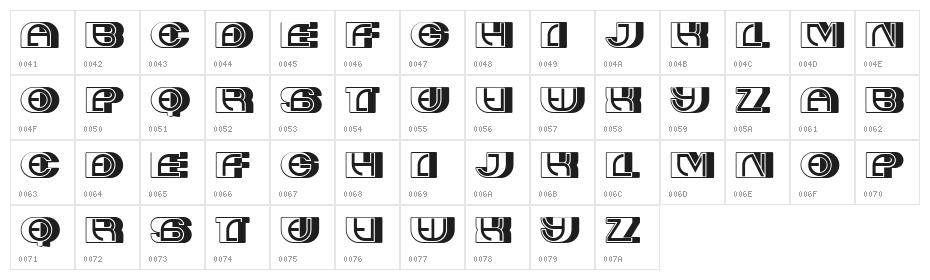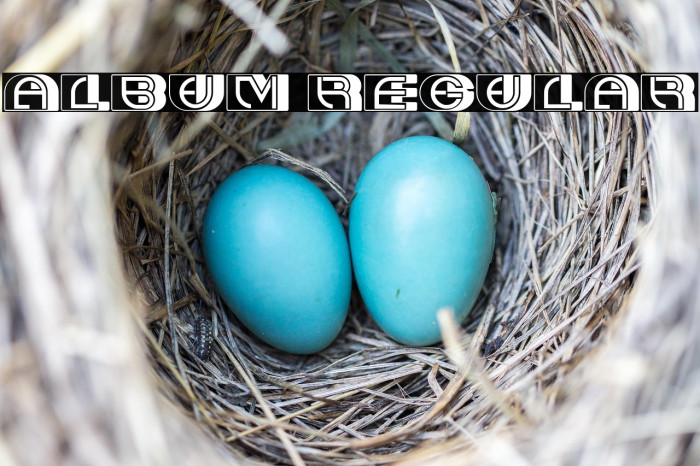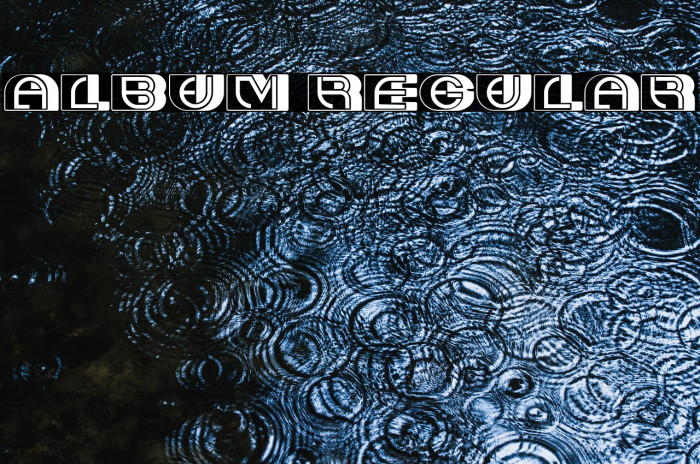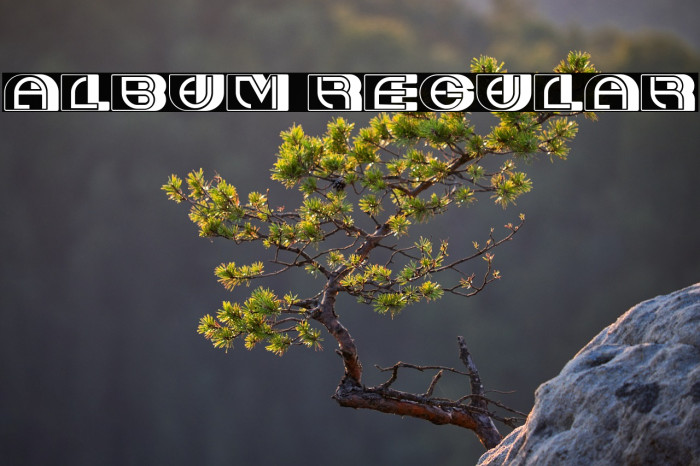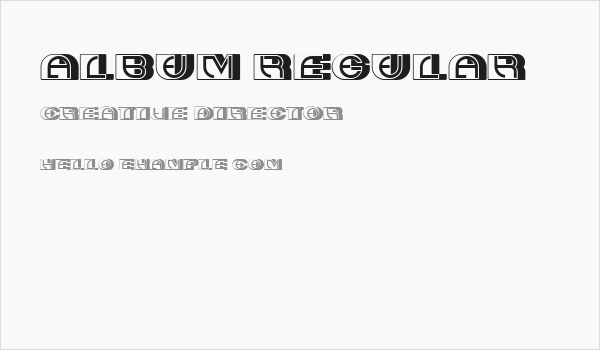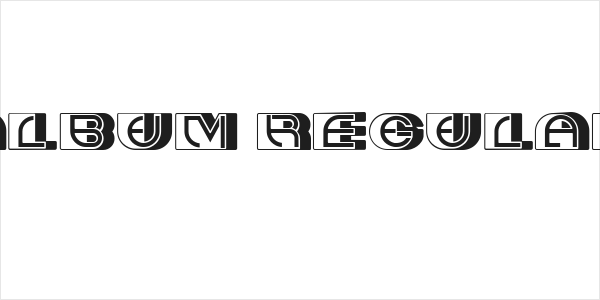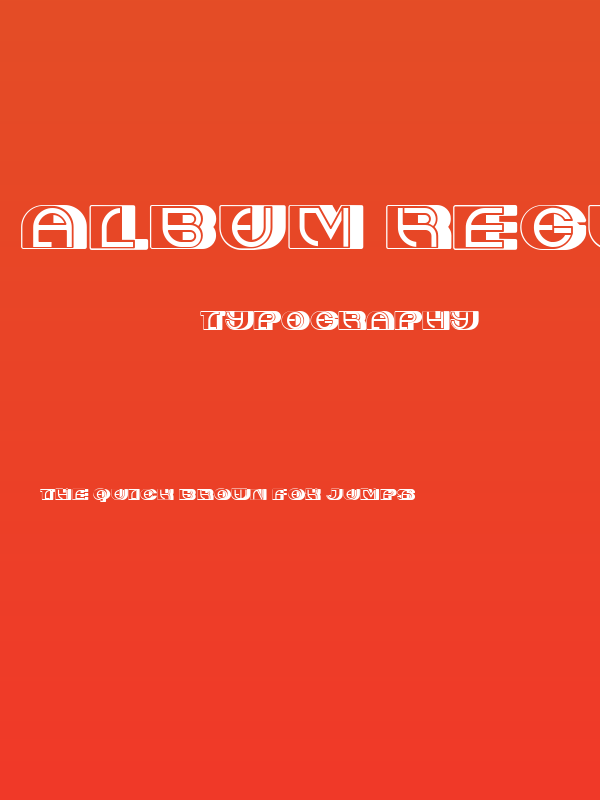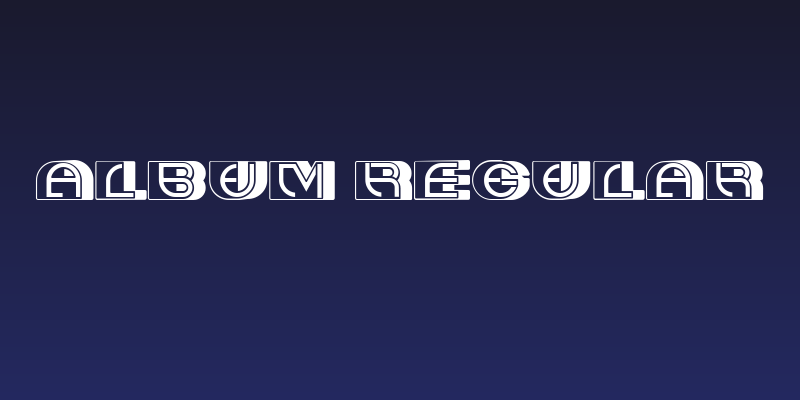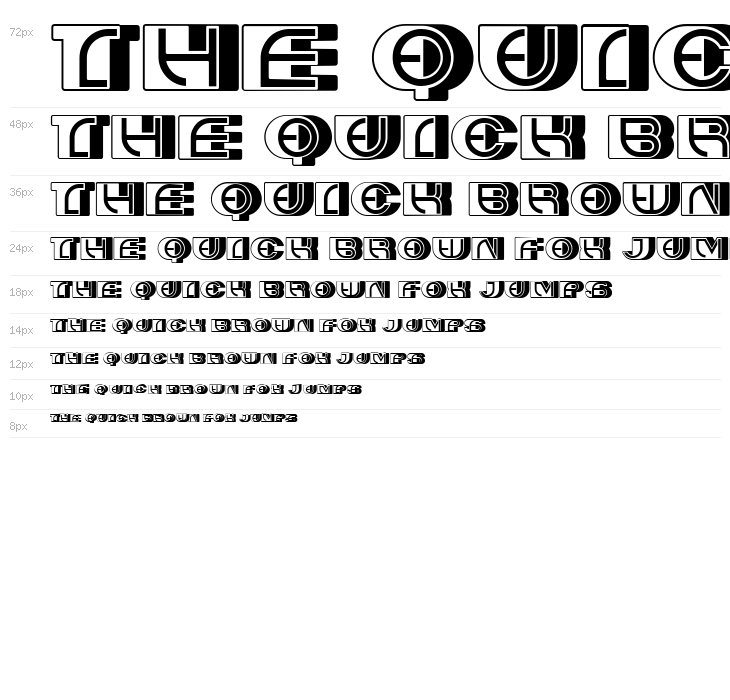
Album Regular Font
Album Regular Description
This font features a bold, geometric design with a distinct outline and shadow effect, creating a three-dimensional appearance. The characters are constructed with clean, straight lines and sharp angles, giving it a modern and futuristic look. The uppercase letters are particularly striking, with a uniform height and width that contribute to a cohesive and balanced aesthetic. The font's unique style makes it stand out, with each letter having a strong presence. The shadow effect adds depth, making the text appear to pop off the page. This font is ideal for creating eye-catching headlines or titles that demand attention.
| Proposed Projects | Ideal for poster designs, album covers, branding projects, and any creative work that requires a bold statement. |